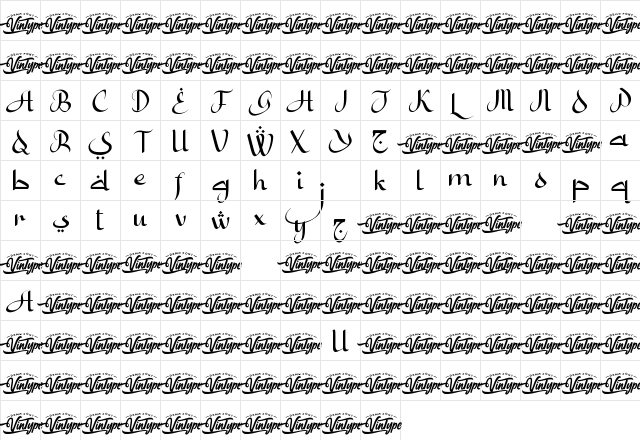
Adzan Subuh Demo Regular Free Font
Adzan Subuh Demo Regular
Foundry: VinType Studio
Designer: Widiyanti & Sarah SP
Design Context for Adzan Subuh Demo
Adzan Subuh Demo is a composed and adaptable typeface that performs quietly and consistently across a wide range of design contexts.